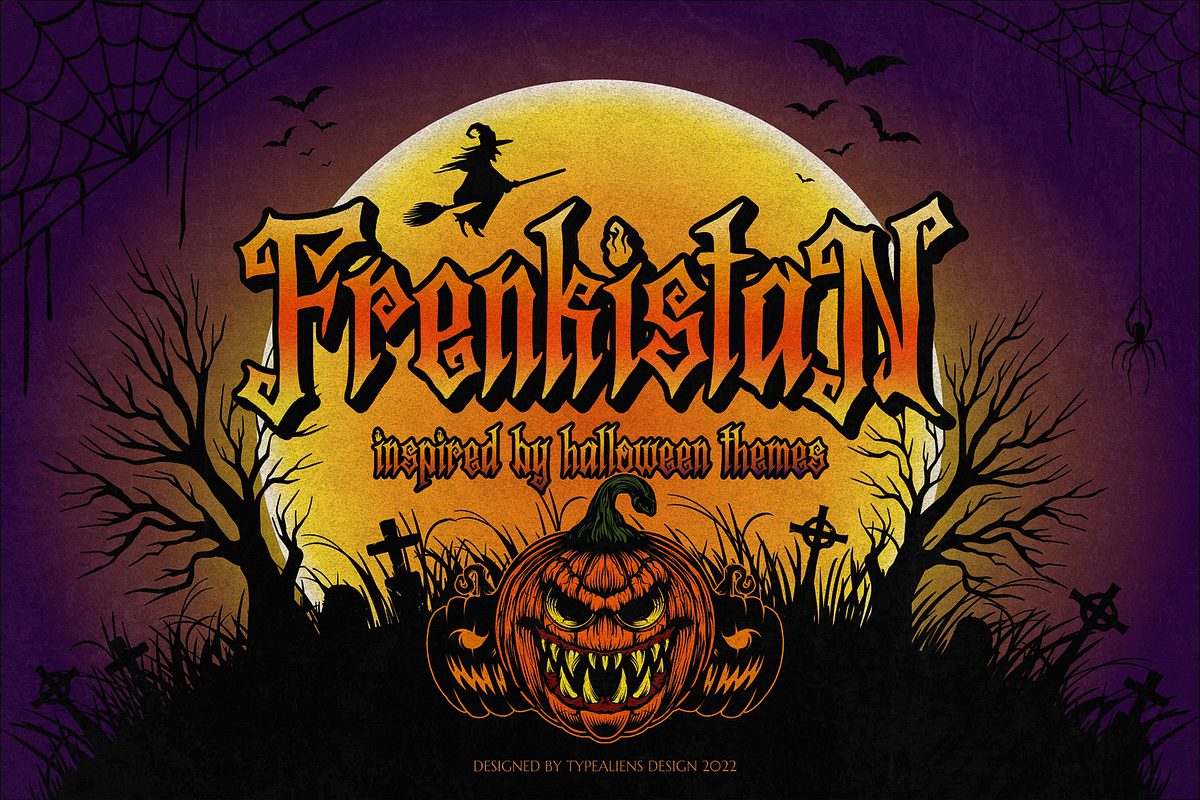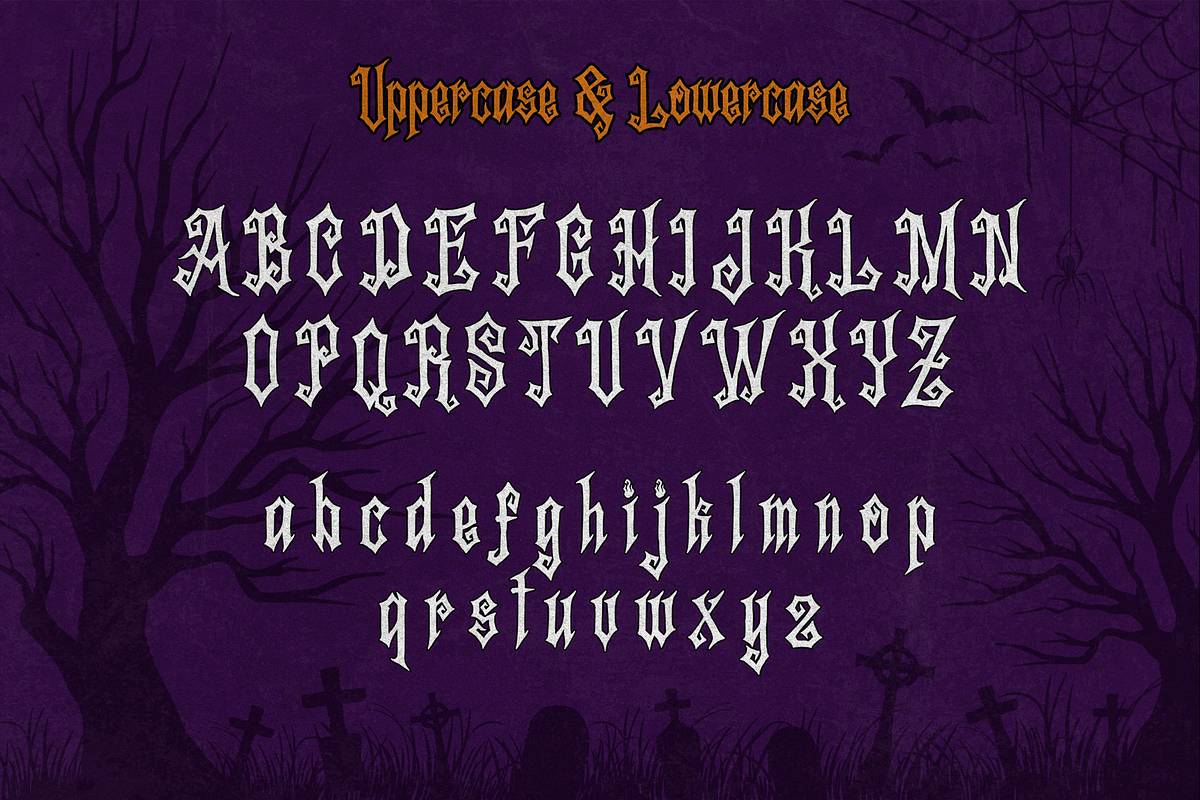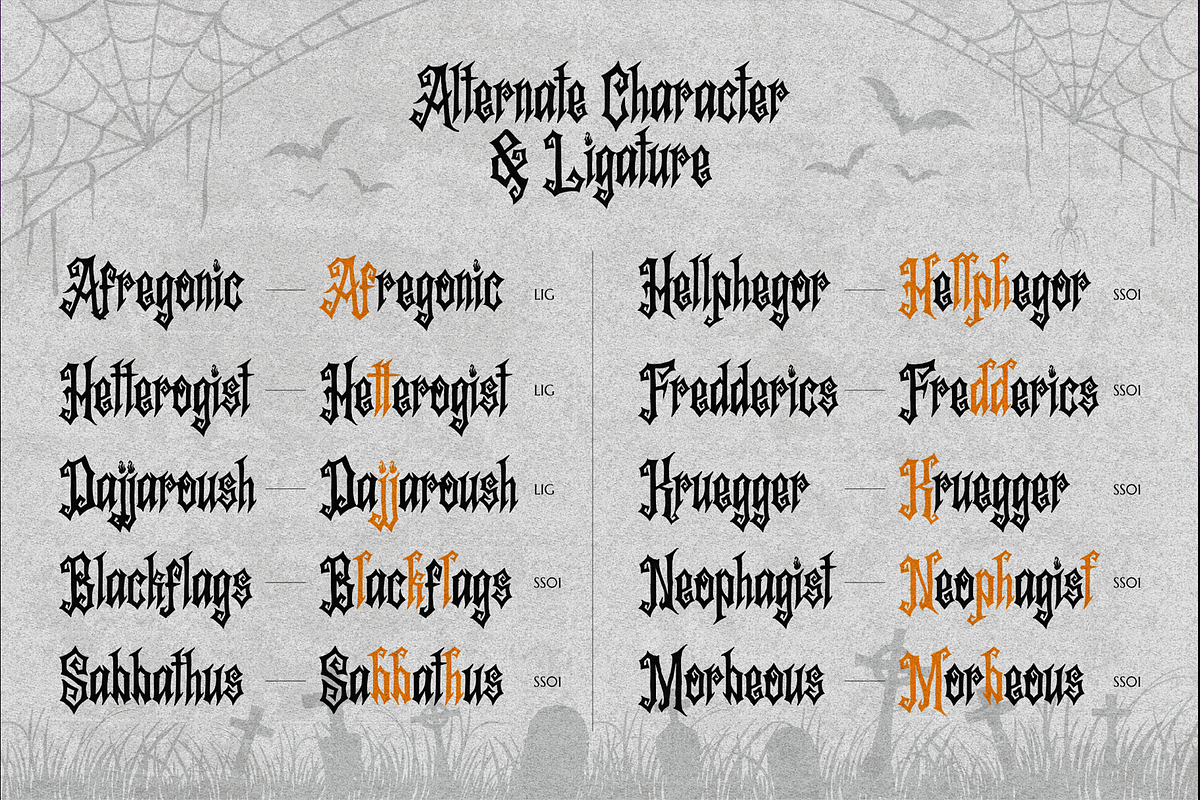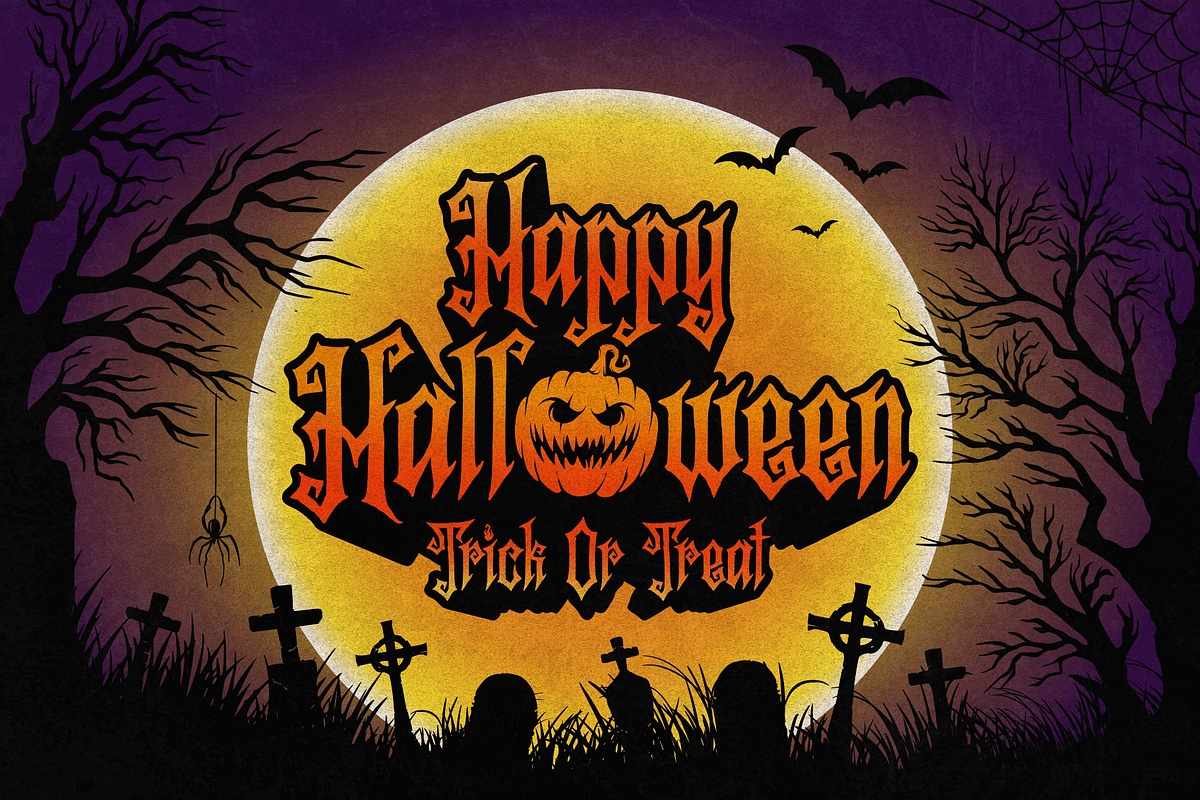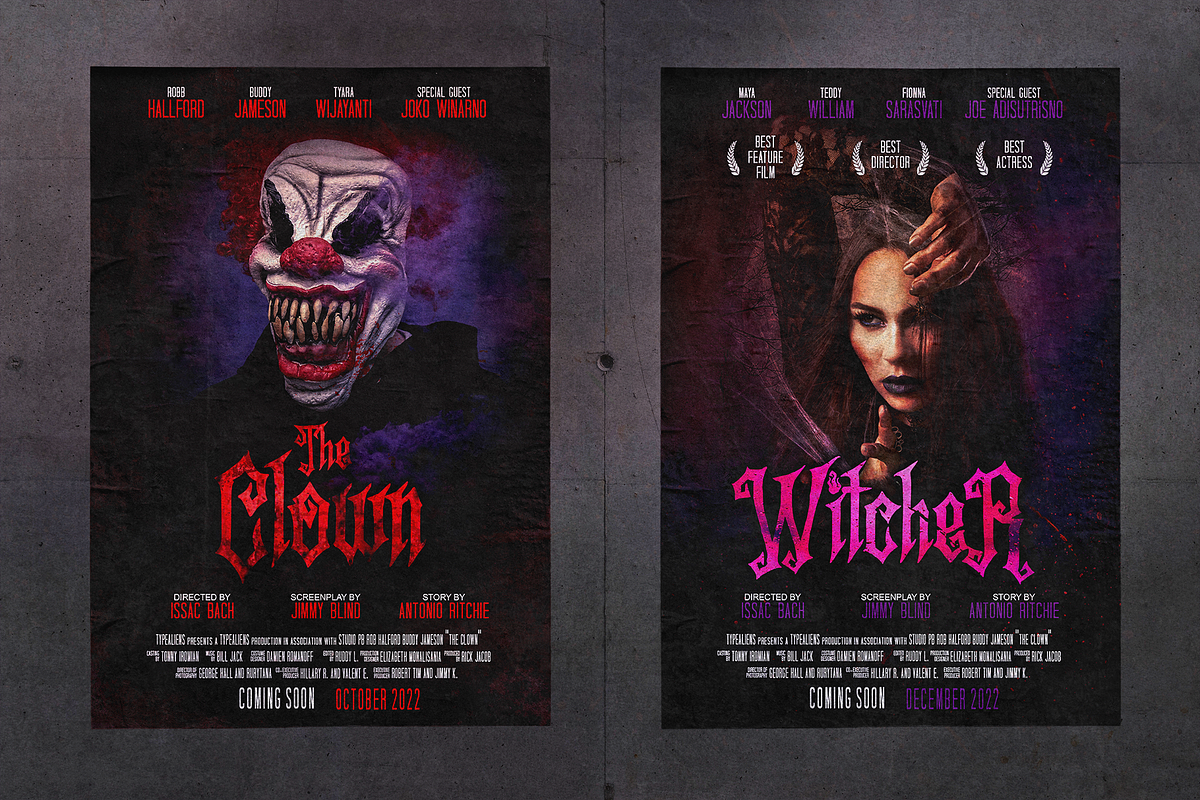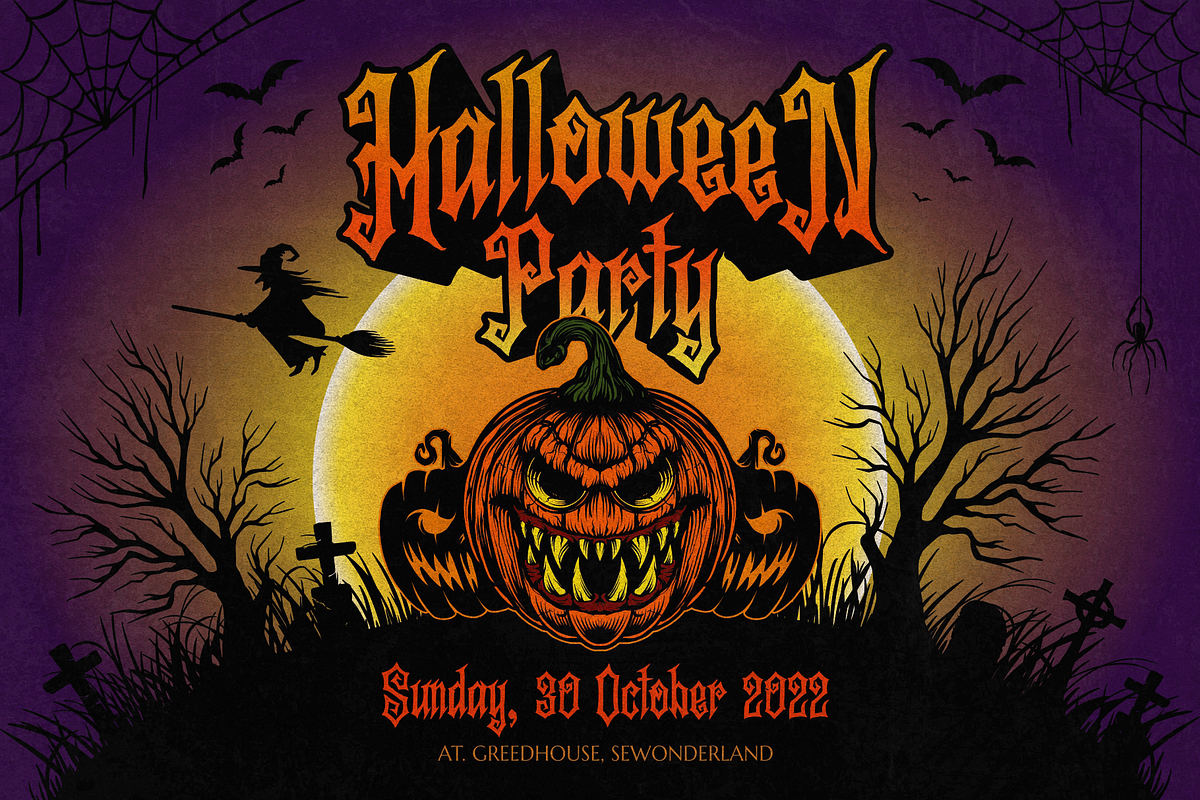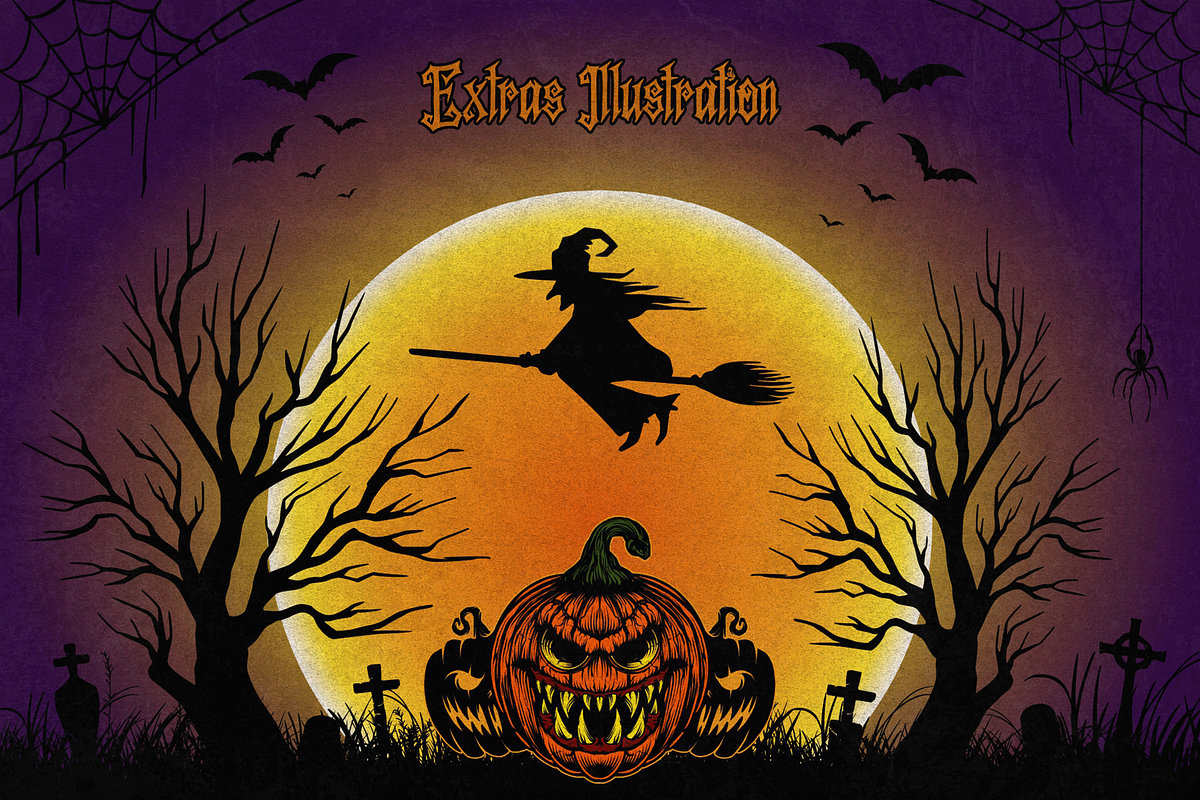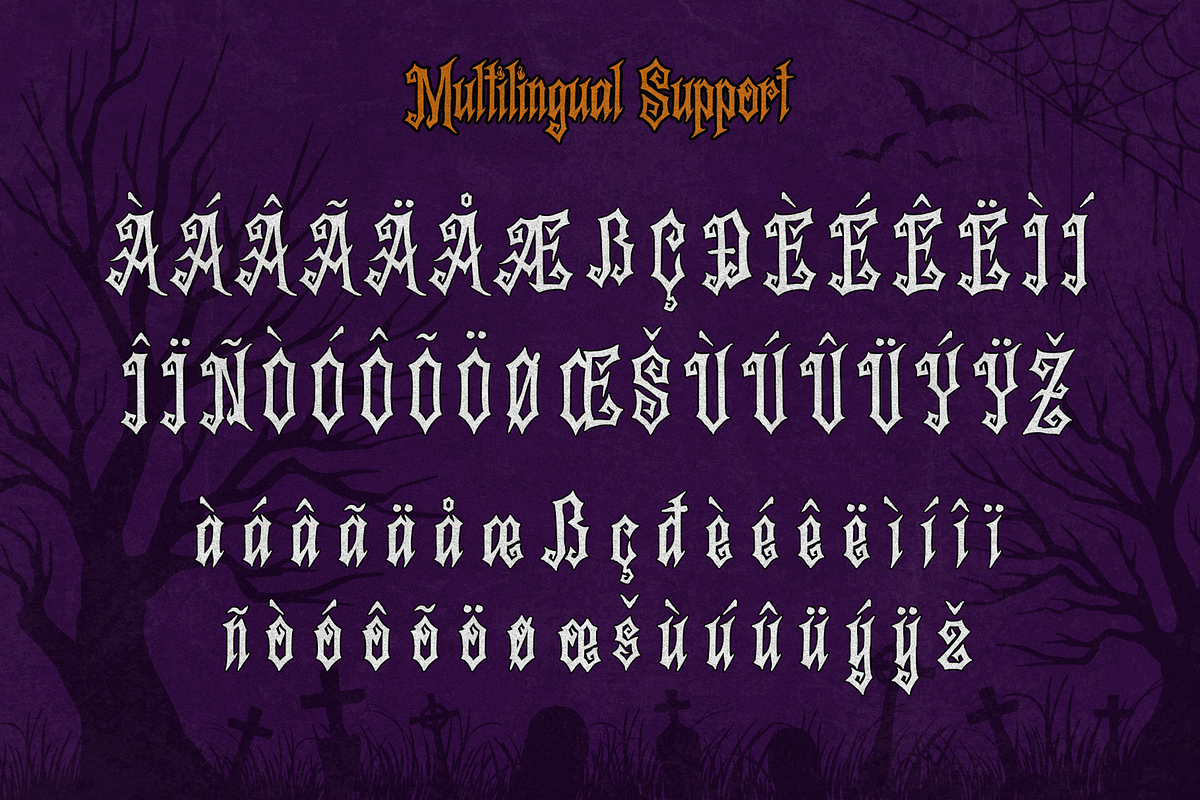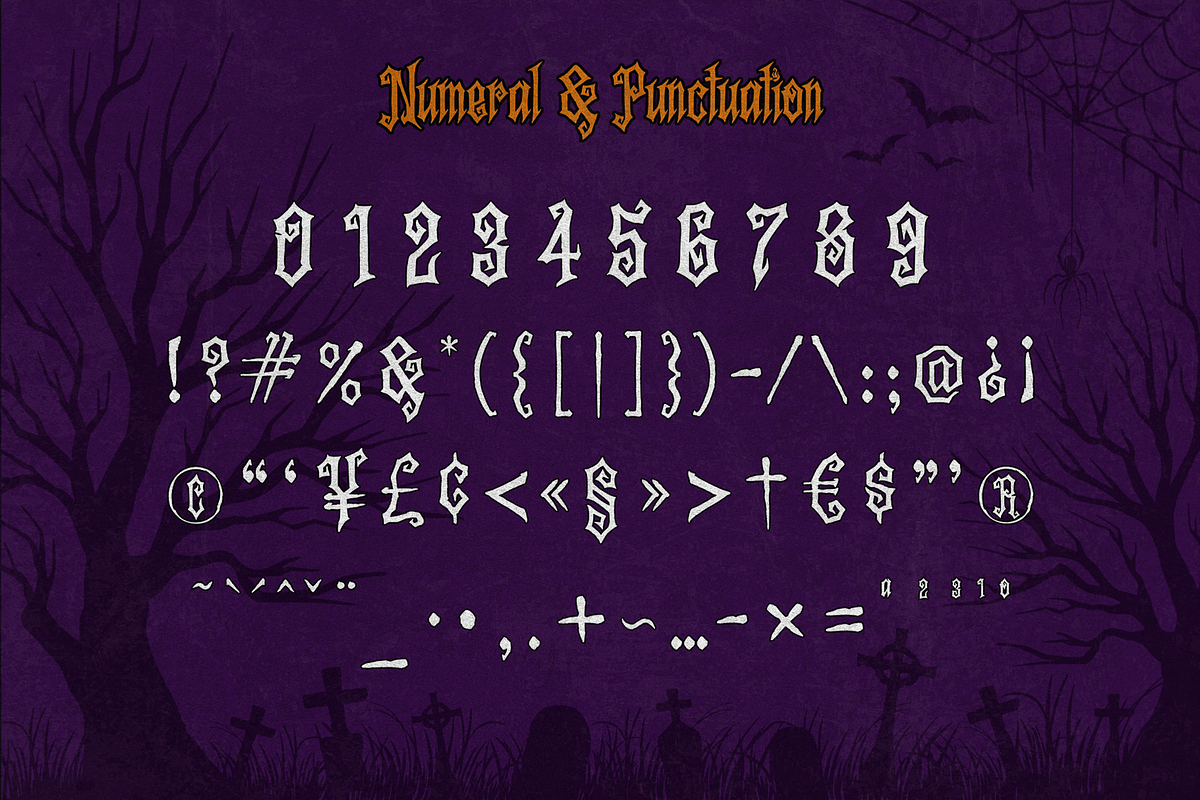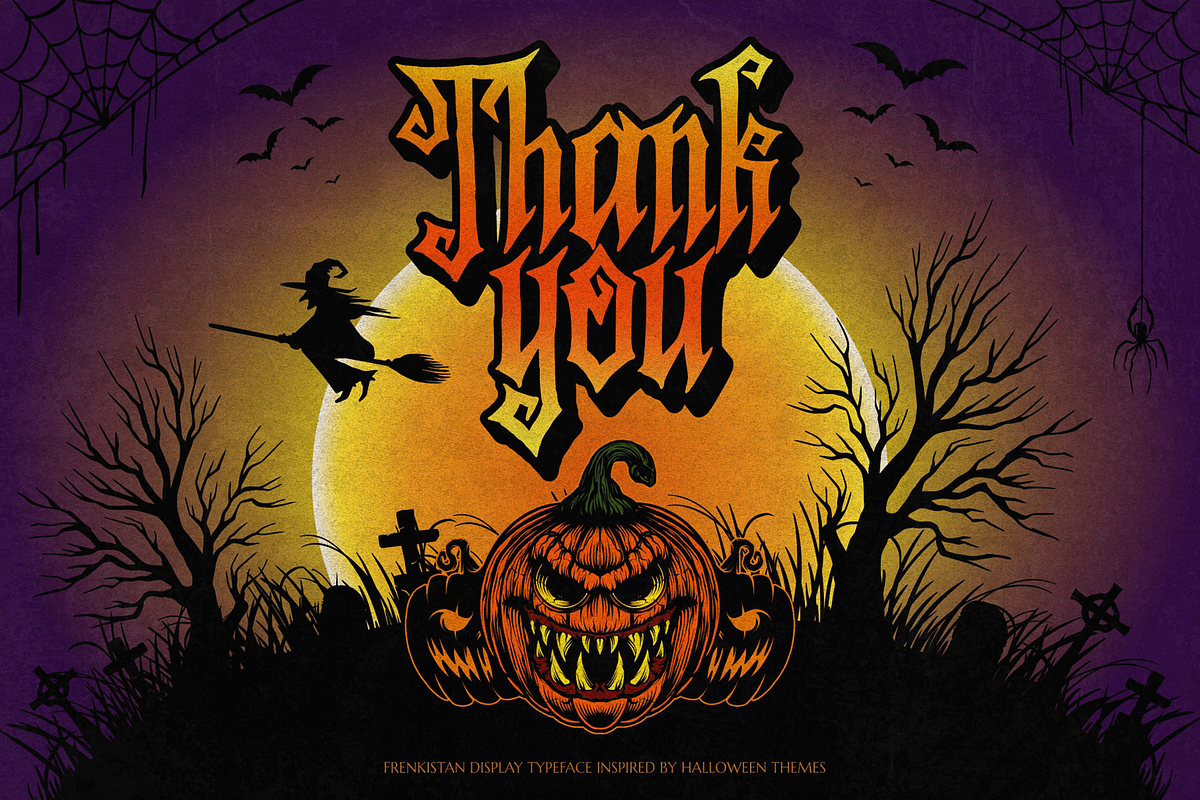
Frenkistan for Halloween & Movies
FRENKISTAN
Frenkistan is a display font intended for horror themes such as halloween events, horror movies and other horror events. With a rough style, adding to this font is even more scary, because technically it is digital hand lettering, so it adds to the impression that this font is handcrafted and the vector process does not refine the rough parts so that it still has a rough impression.